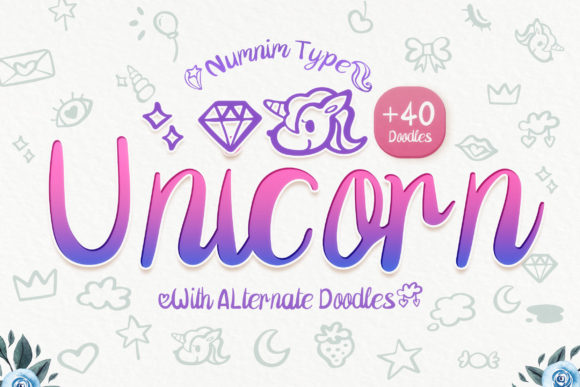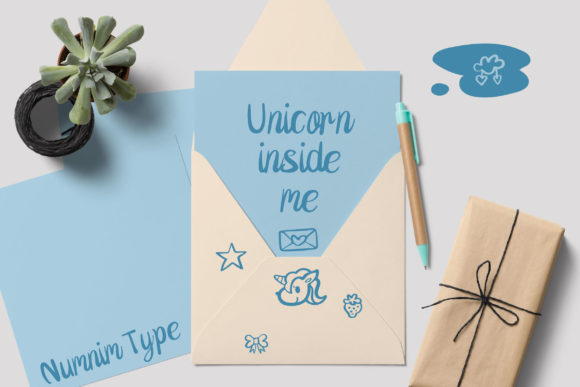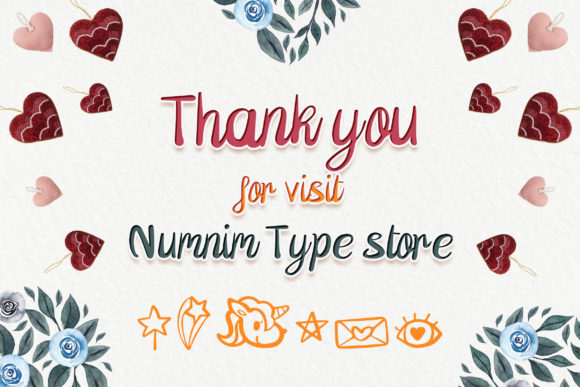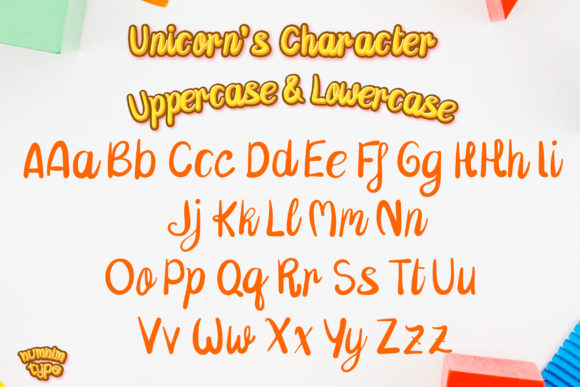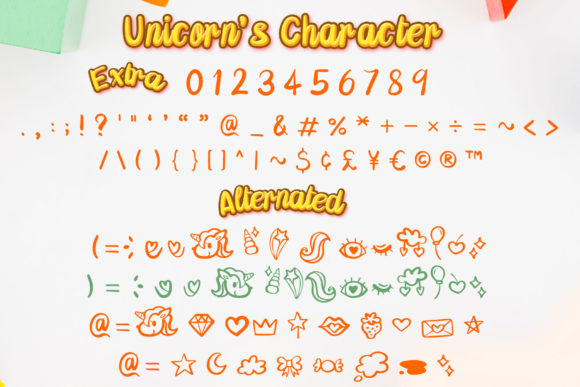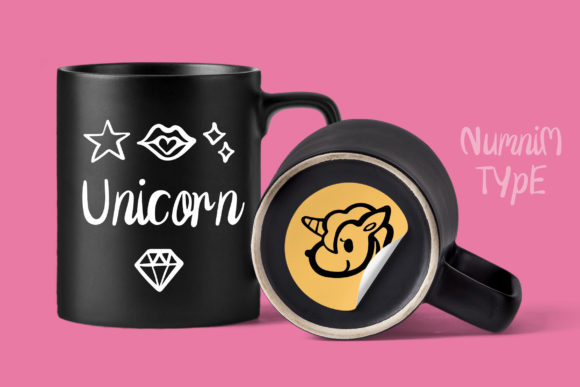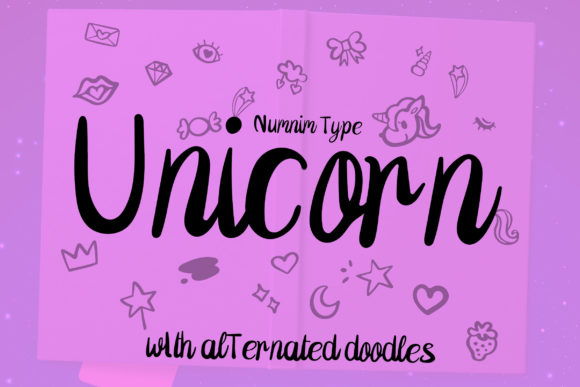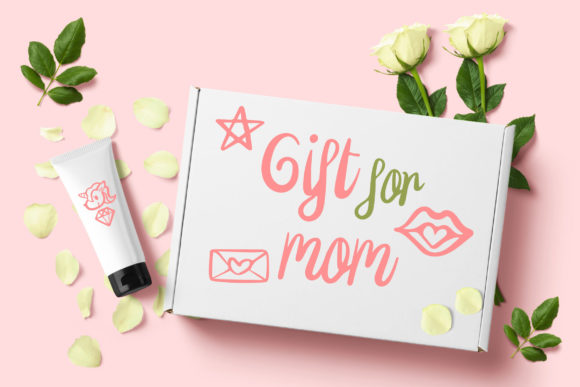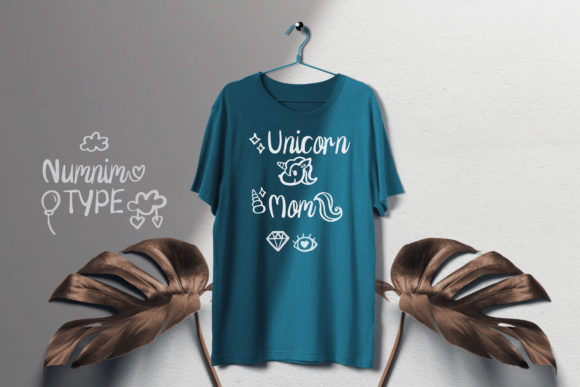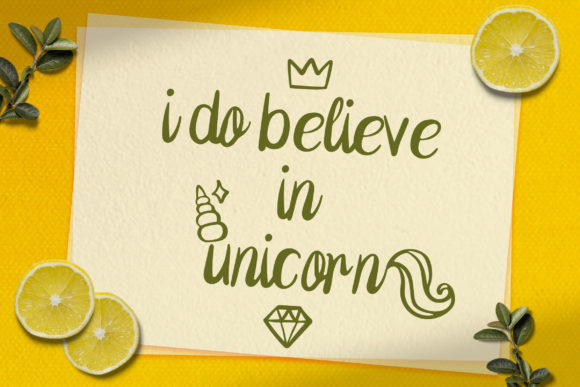
Unicorn Font
Unicorn is a joyful and friendly handwritten font, featuring cute doodle elements. Fall in love with its sweet, versatile style and use it to create lovely designs for school or child related.